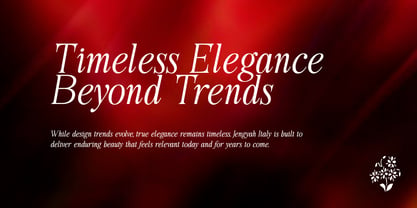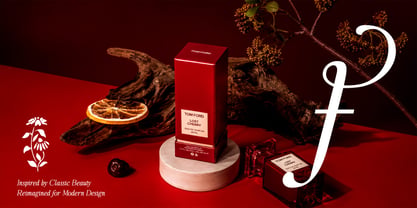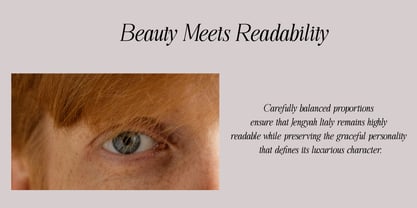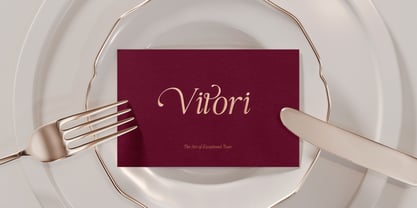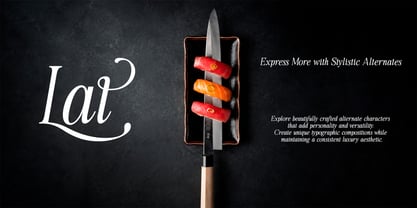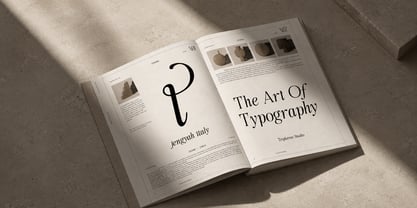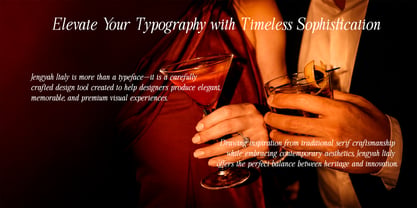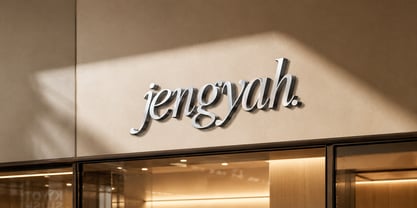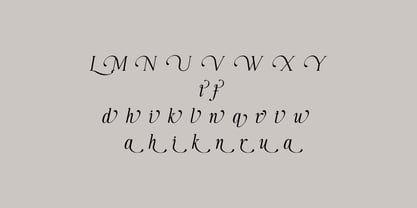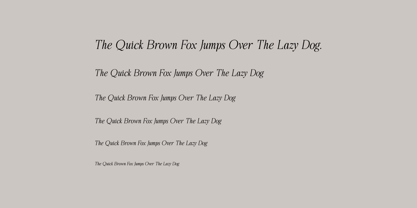
JengYah
by Tripletree Studio
The JengYah Font Family was designed by Muhamad Sh and published by Tripletree Studio. JengYah contains 2 styles and family package options. More about this family
JengYah is a refined serif typeface that embodies a love for classic typography combined with contemporary elegance. Designed to bridge the gap between traditional craftsmanship and modern design sensibilities, JengYah exudes a quiet confidence, making it versatile for a wide range of applications. The Regular style features clean, structured letterforms with subtle humanist details, while the Italic companion introduces a softer, more expressive energy, creating a natural and harmonious pairing for sophisticated typographic compositions. Whether you're crafting a wedding invitation suite, a luxury brand identity, an editorial spread, or a lifestyle product label, JengYah adapts effortlessly while preserving its distinctive character. Key features: — 2 styles: Regular & Italic — Suitable for both display and short body text — Clean, well-spaced letterforms for maximum readability — Ideal for print and digital media. JengYah pairs beautifully with minimalist sans-serif typefaces, making it a preferred choice for designers who value balance, elegance, and clarity in their work.
Designers: Muhamad Sh
Foundry: Tripletree Studio